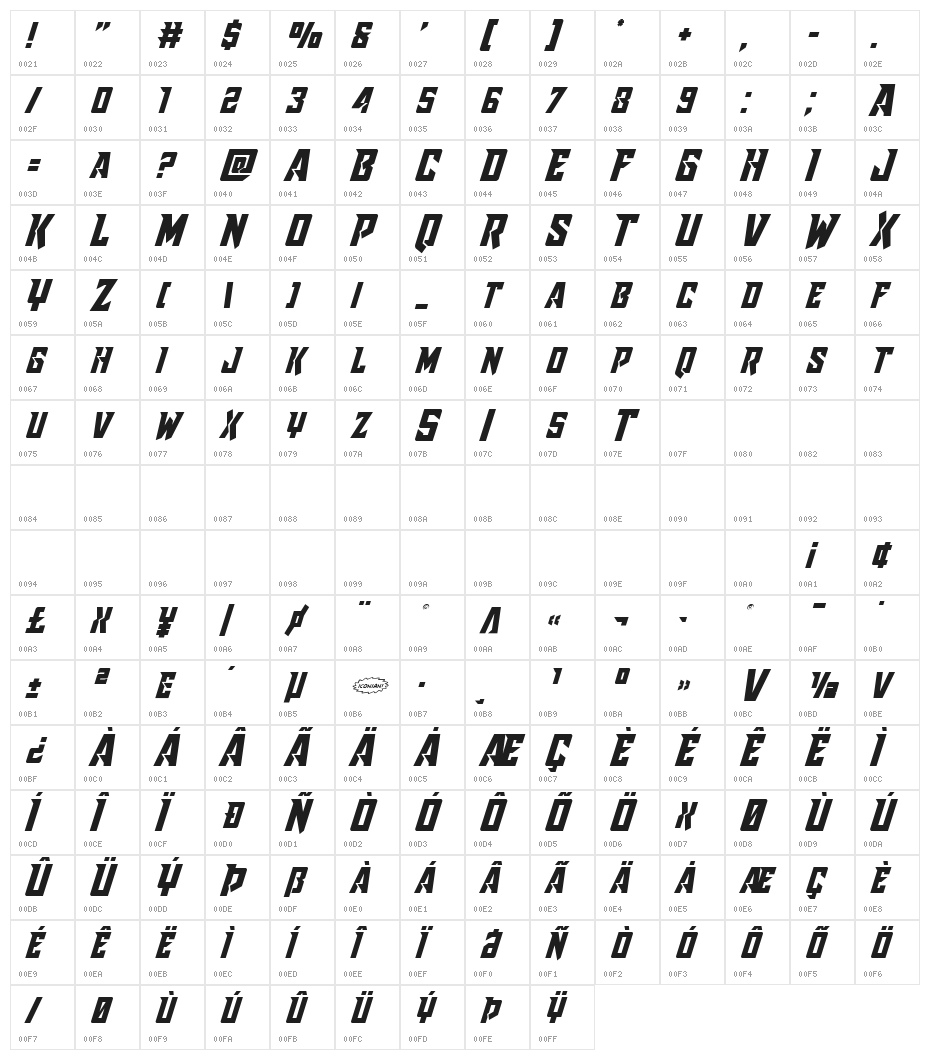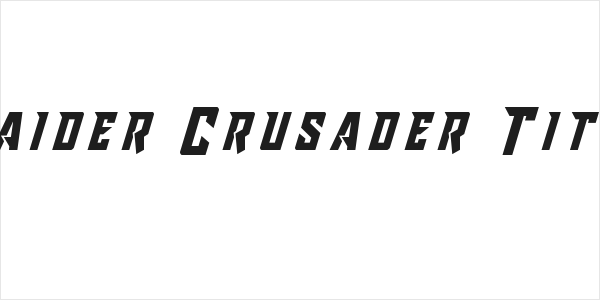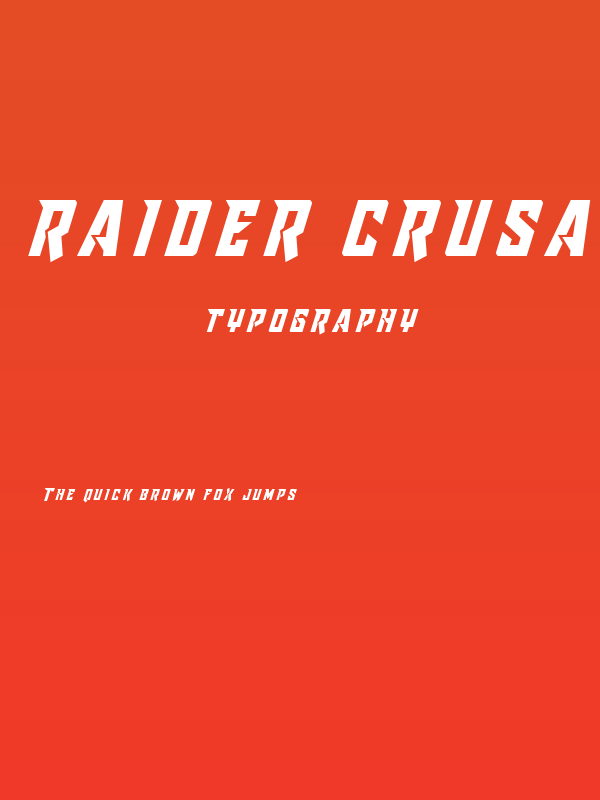
Raider Crusader Title Font
Raider Crusader Title Description
This font features a bold and angular design, characterized by sharp edges and a strong geometric structure. The uppercase letters are particularly striking, with a dynamic and aggressive appearance that suggests movement and power. The numbers and special characters maintain this bold style, ensuring consistency across all glyphs. The font's unique style makes it stand out, with a futuristic and slightly rebellious vibe. Its high contrast and thick strokes make it highly legible, even from a distance, while the angular cuts and slants add a touch of modernity and edginess.
| Proposed Projects | Ideal for sports team logos, action movie posters, video game titles, and branding that requires a strong, impactful presence. |